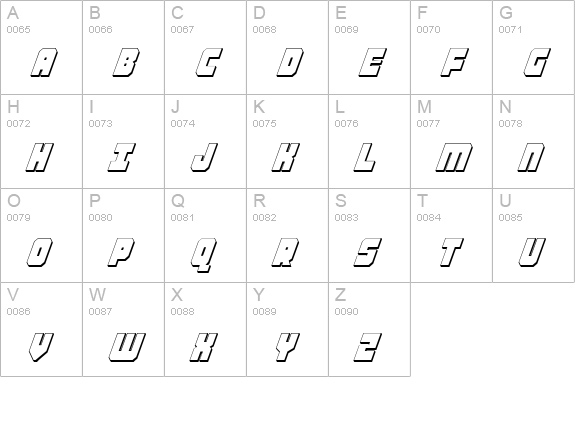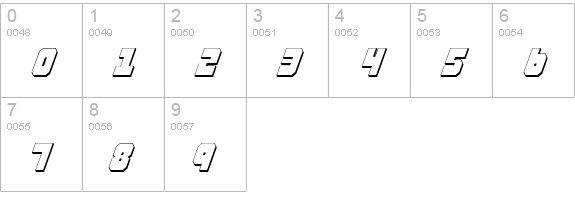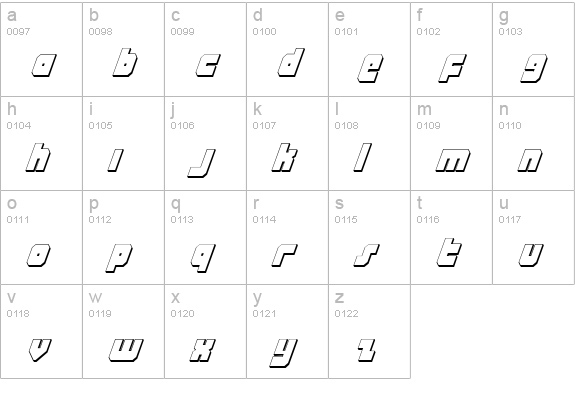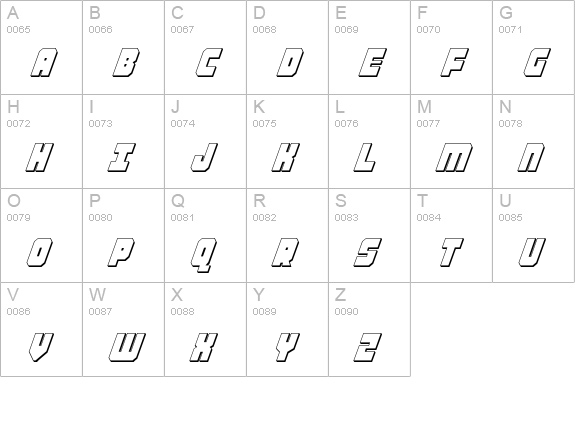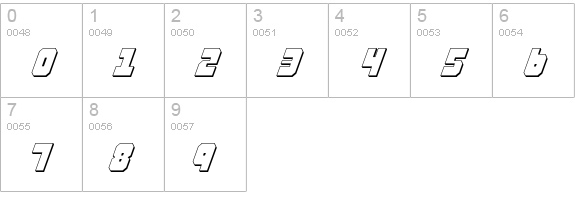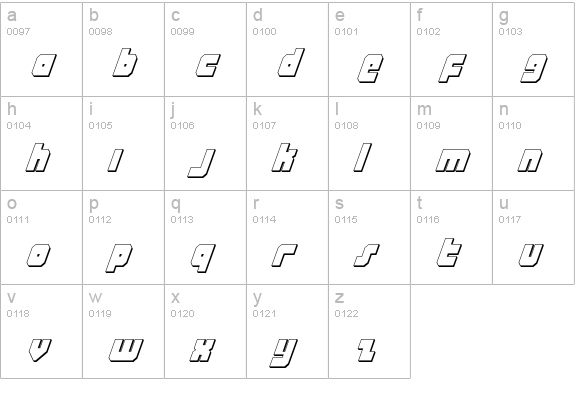
Alpha Taurus 3D Italic is a distinctive, italic variant in the Alpha typeface family \xE2\x80\x94 well suited to design and typography projects.
Introducing Alpha Taurus 3D Italic font - a modern and stylish typeface that is sure to make your designs stand out. This unique font features a sleek 3D effect that adds depth and dimension to your text. The italic styling gives it a touch of elegance, perfect for adding a sophisticated touch to any project. And the best part? Alpha Taurus 3D Italic font is available for free download at FontsMarket.com. Whether you're designing a website, creating a logo, or working on a print project, this font is sure to elevate your work to the next level. Don't miss out on the opportunity to enhance your designs with this stunning typeface - download Alpha Taurus 3D Italic font today!